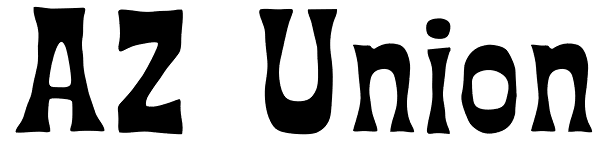
AZ Union
AZ Union font was inspired from an old vintage tin from the early 1900's This font utilizes an "old look" to the line work which is designed to have a "worn feel" to it. Ideal for use as headline or sub-head text in you design.